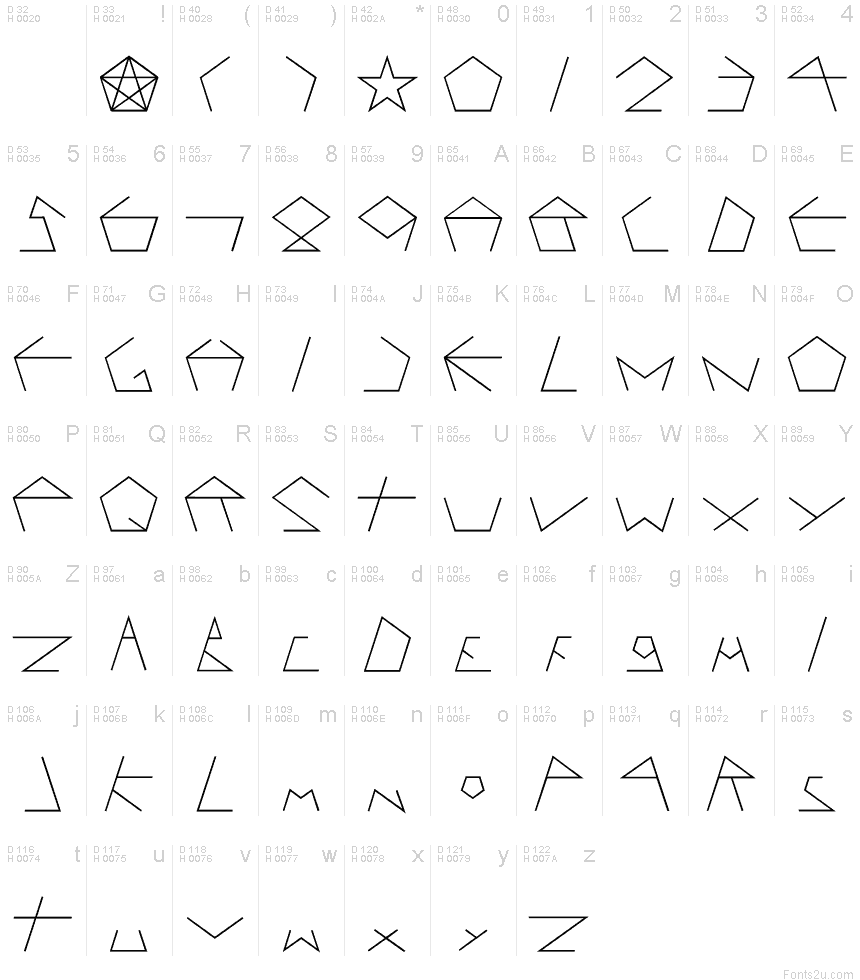
PENTAGRON
Pentagron, a captivating display font crafted by designer Kyakirun's Pasomono, exudes a distinct techno-inspired charm. Its light, expanded structure creates an intriguing visual rhythm, with pentagonal forms and sharp angles that evoke a sense of futuristic dynamism. This font's versatility shines through, effortlessly adapting to bold headlines, eye-catching logos, or immersive digital interfaces.
Pentagron's striking aesthetic, which seamlessly blends sleekness and modernity, makes it an excellent choice for projects seeking to convey a cutting-edge, technology-driven ambiance.